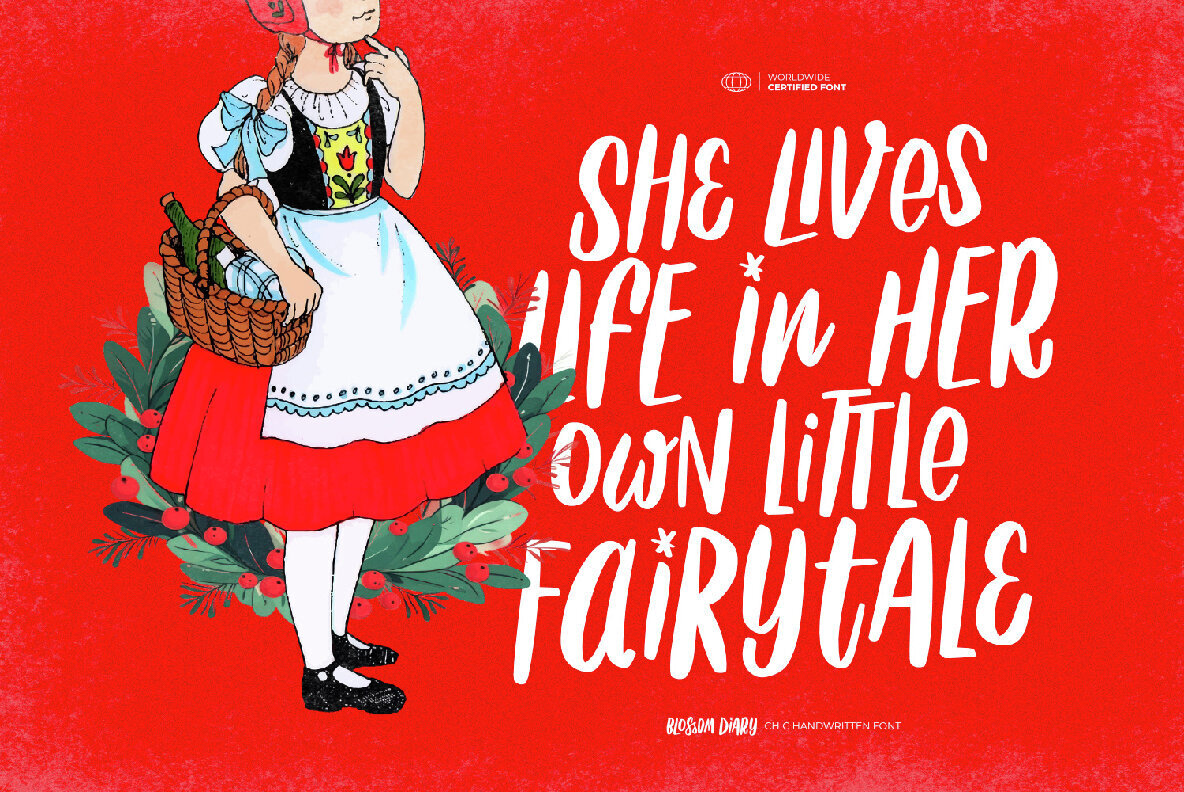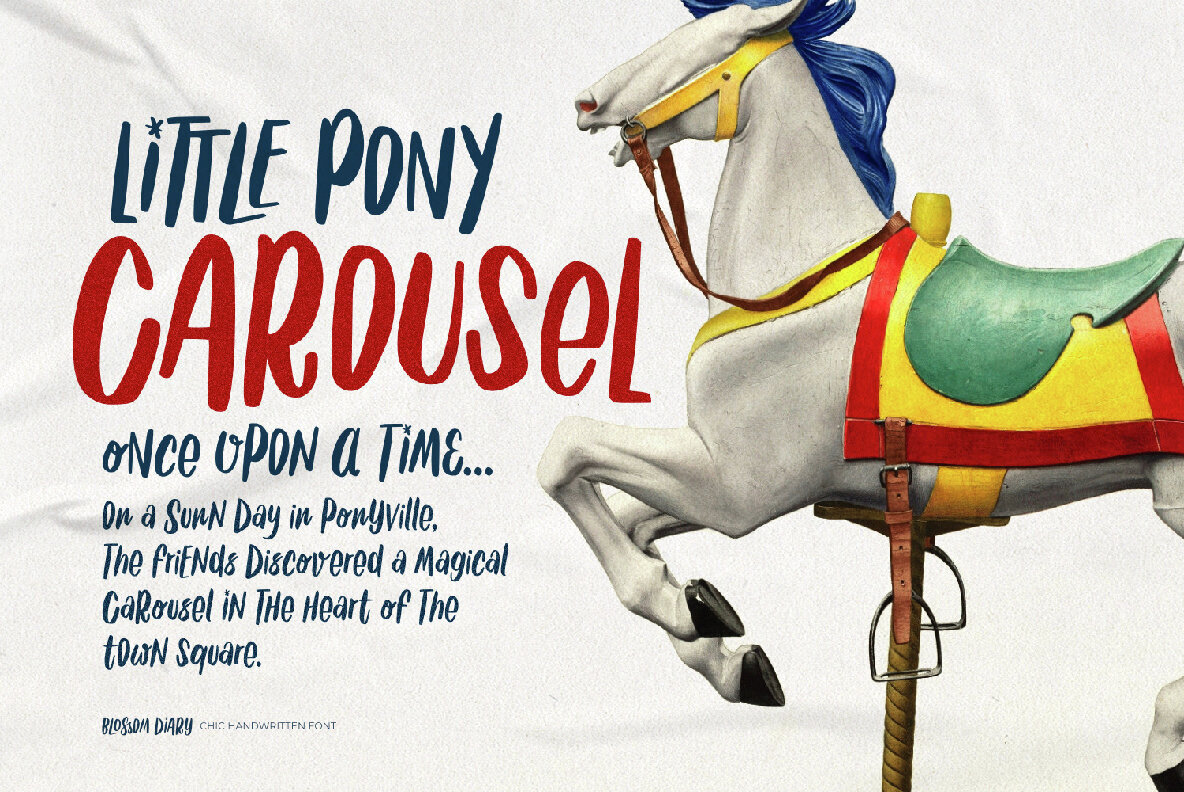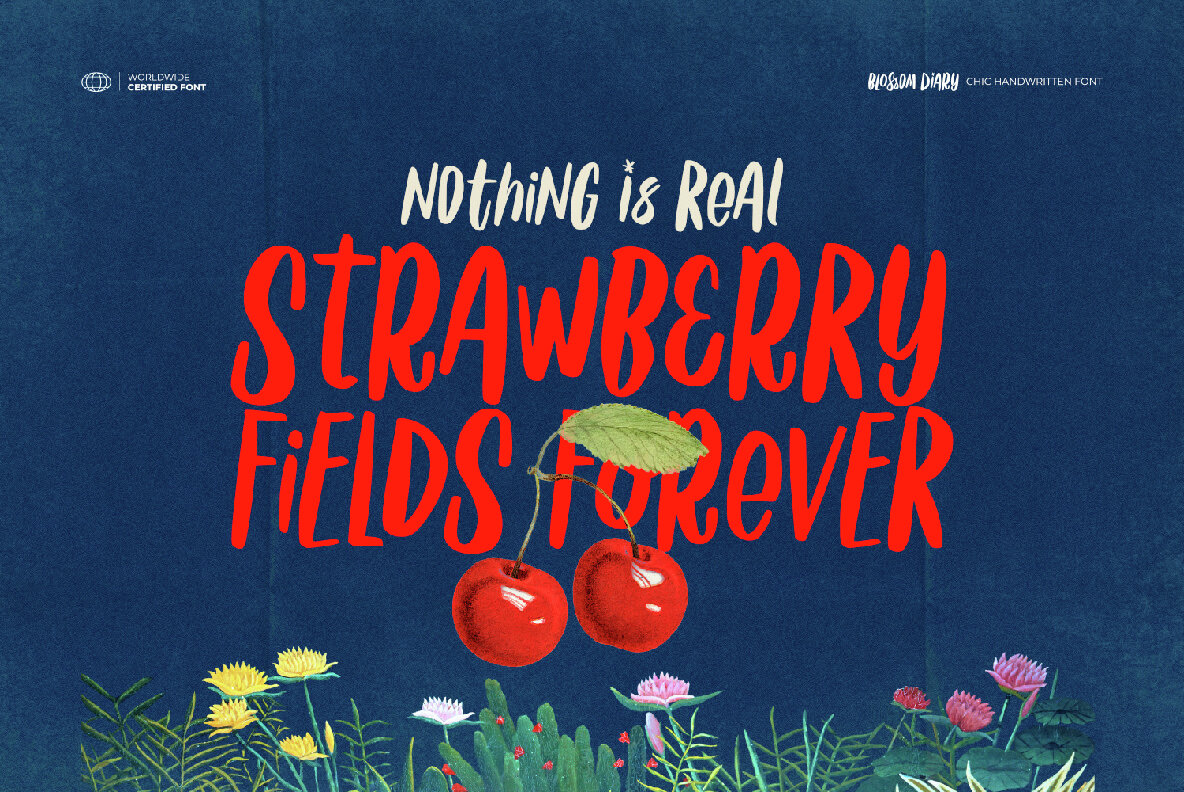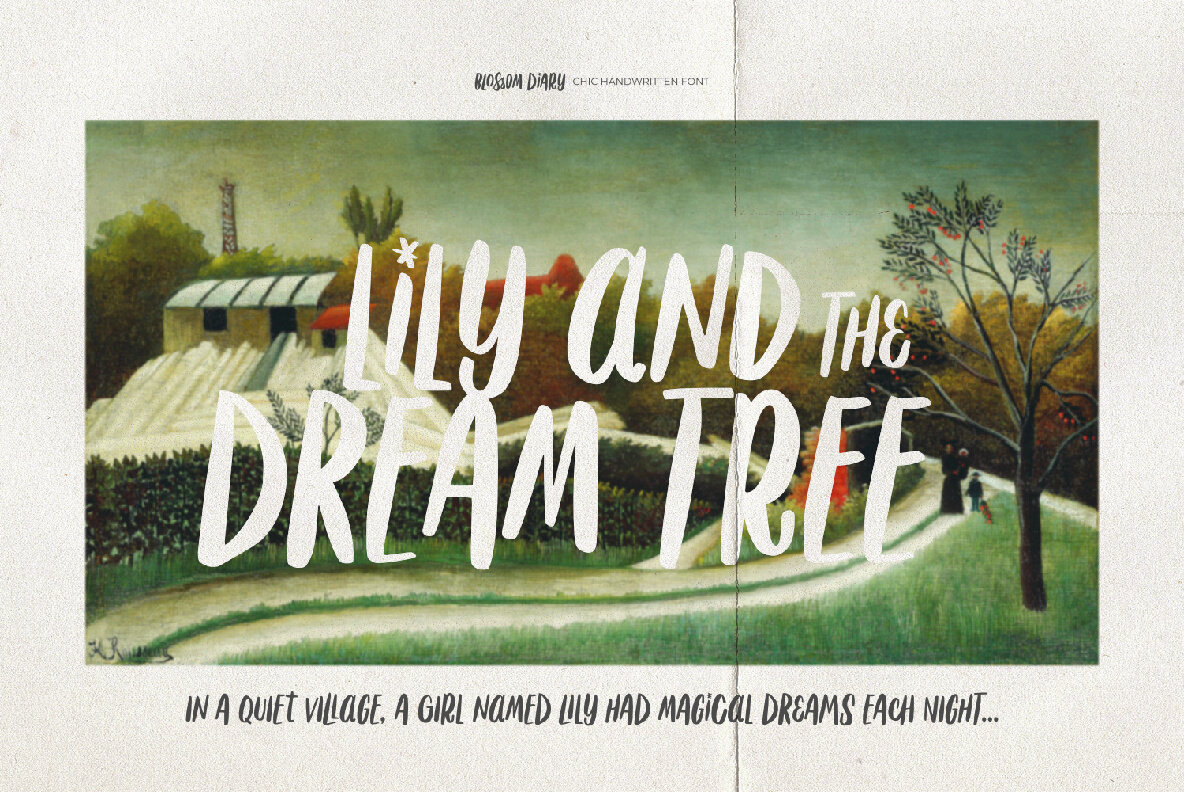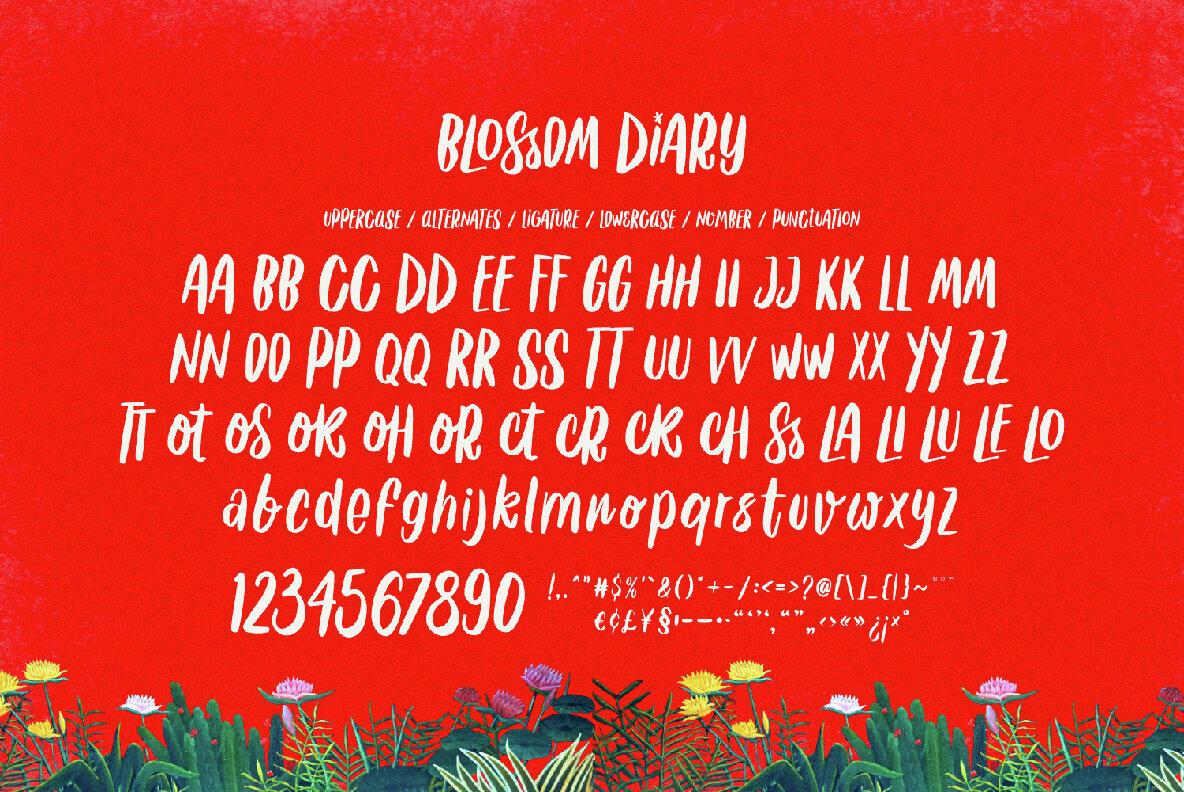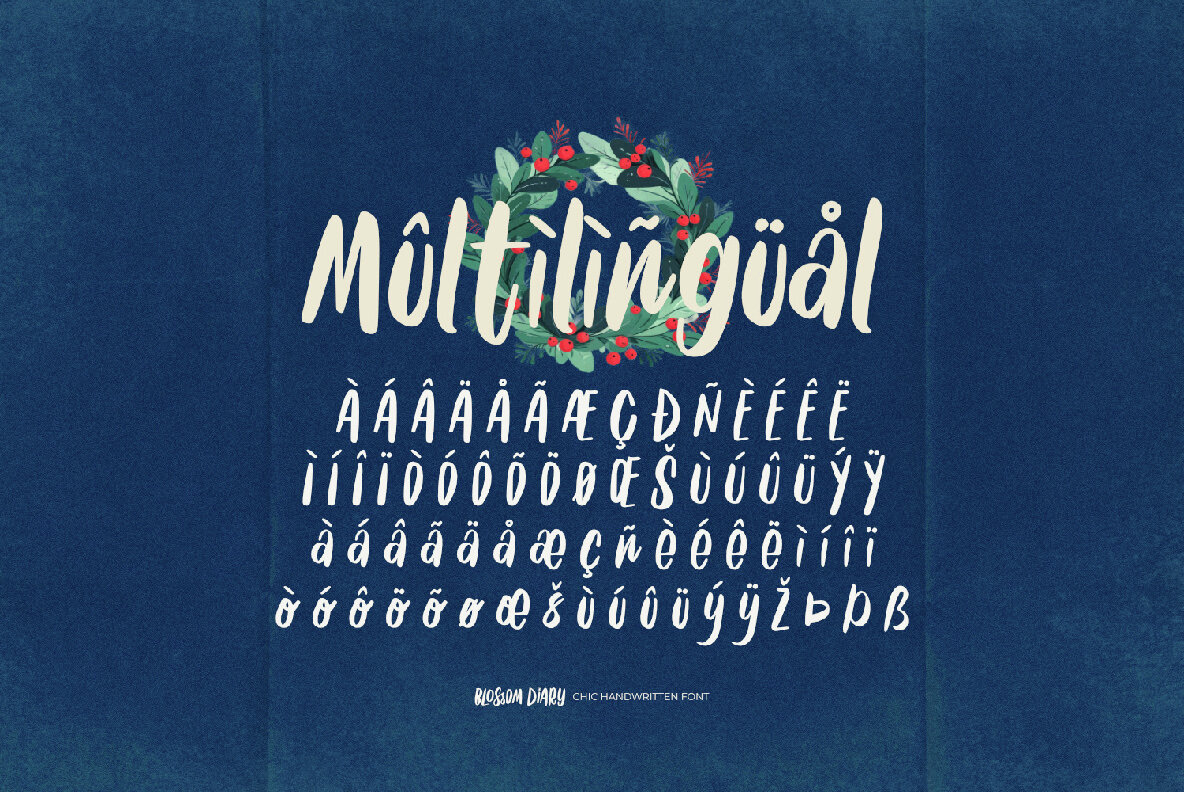
Blossom Diary Font
Blossom Diary
Blossom Diary is a chic handwritten font that captures the whimsical essence of a personal diary or journal. Its fluid, handwriting style feels as if it’s been delicately penned by hand, making it perfect for adding a dreamy and fanciful touch to your designs. This font combines modern elegance with playful charm, ideal for fairy tales, personal journals, or creative projects. It evokes the magic of storytelling and the appeal of handwritten notes, offering a soft, handwritten look.
Blossom Diary is versatile, making it suitable for creating storybooks, fairy tales, kids' games, posters, magazine layouts, packaging, food and beverage branding, quotes, or as a stylish text overlay on background images. The font includes uppercase and lowercase letters, numbers and punctuation, alternates and ligatures, and offers multilingual support. It's compatible with both PC and Mac, ensuring broad usability across various platforms and projects.